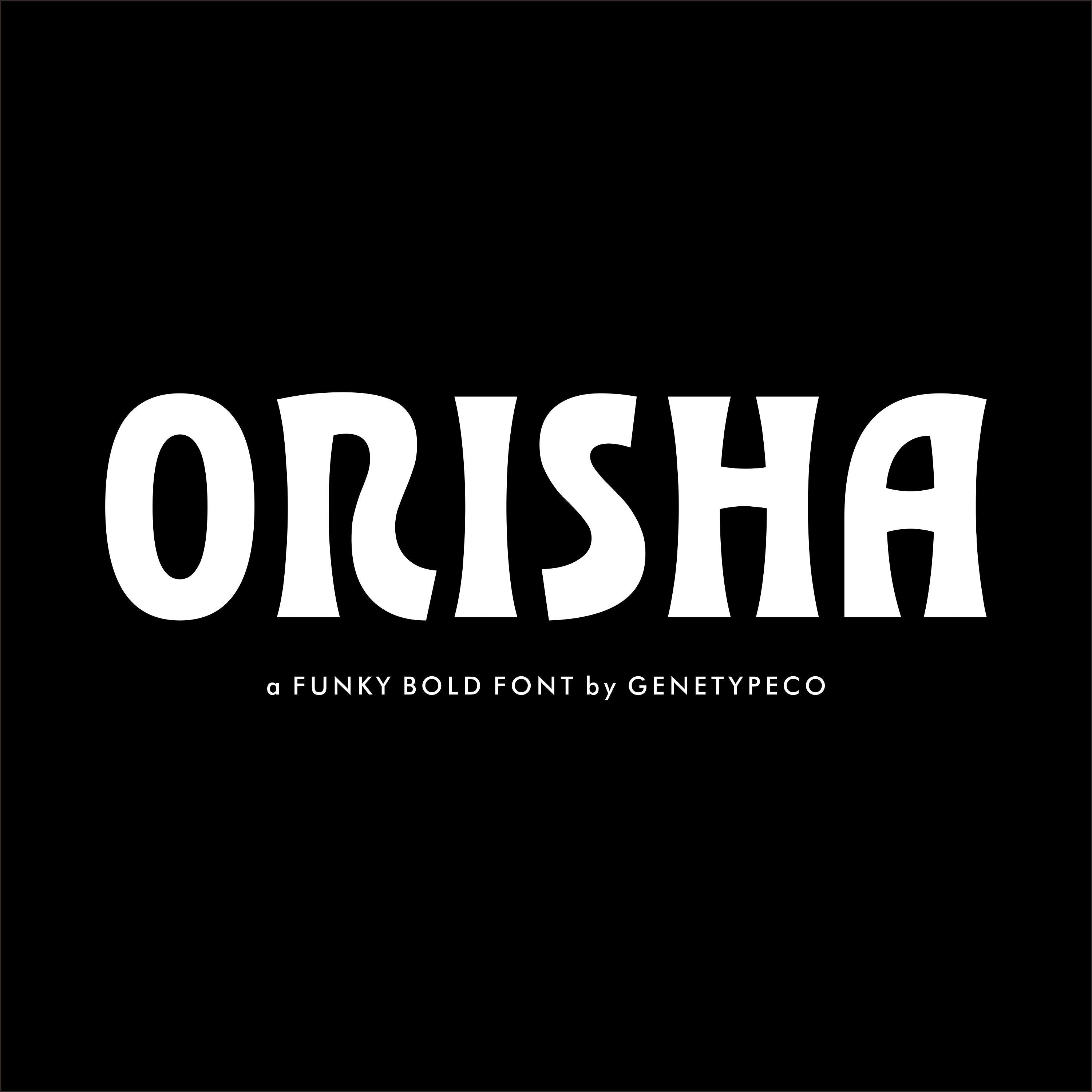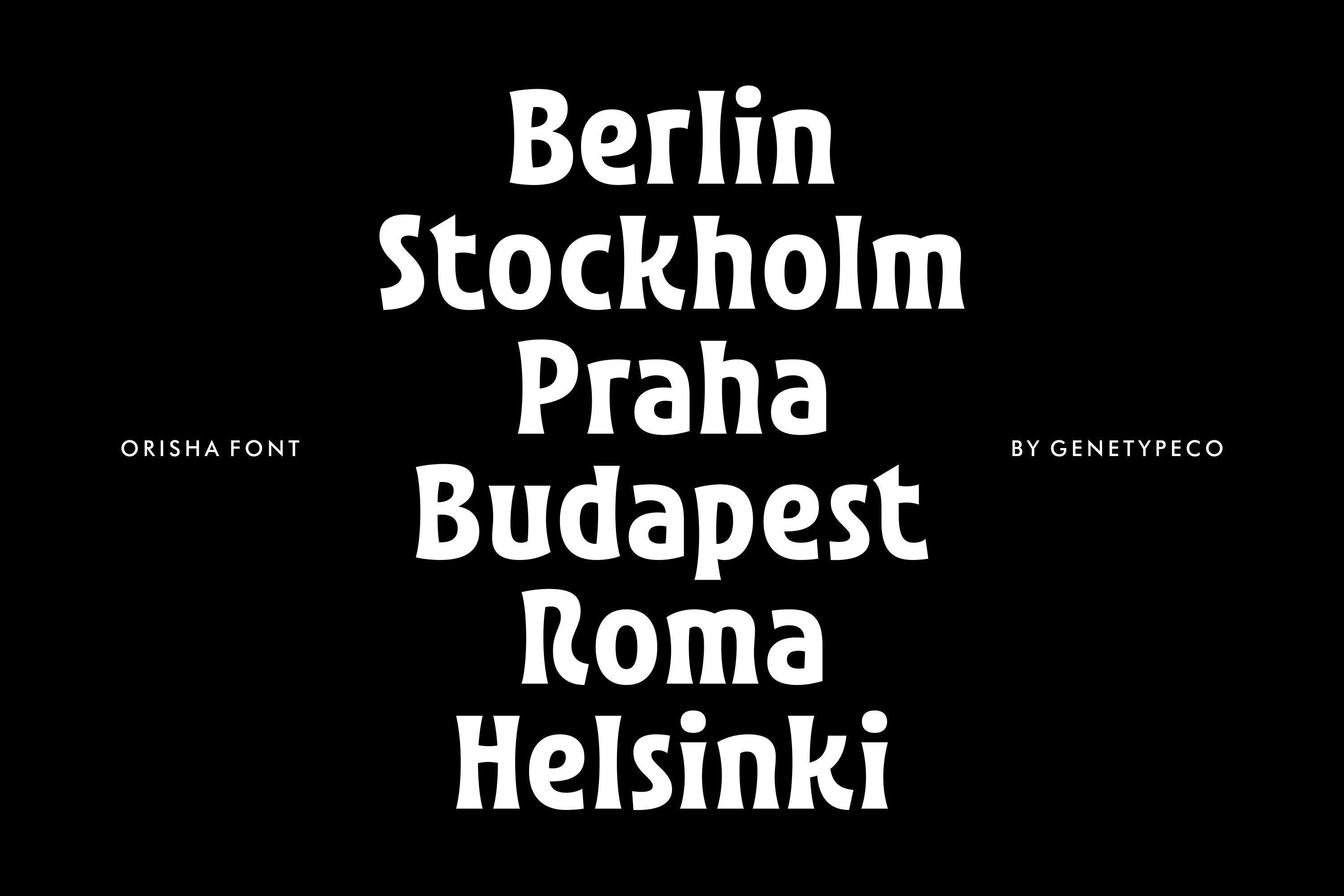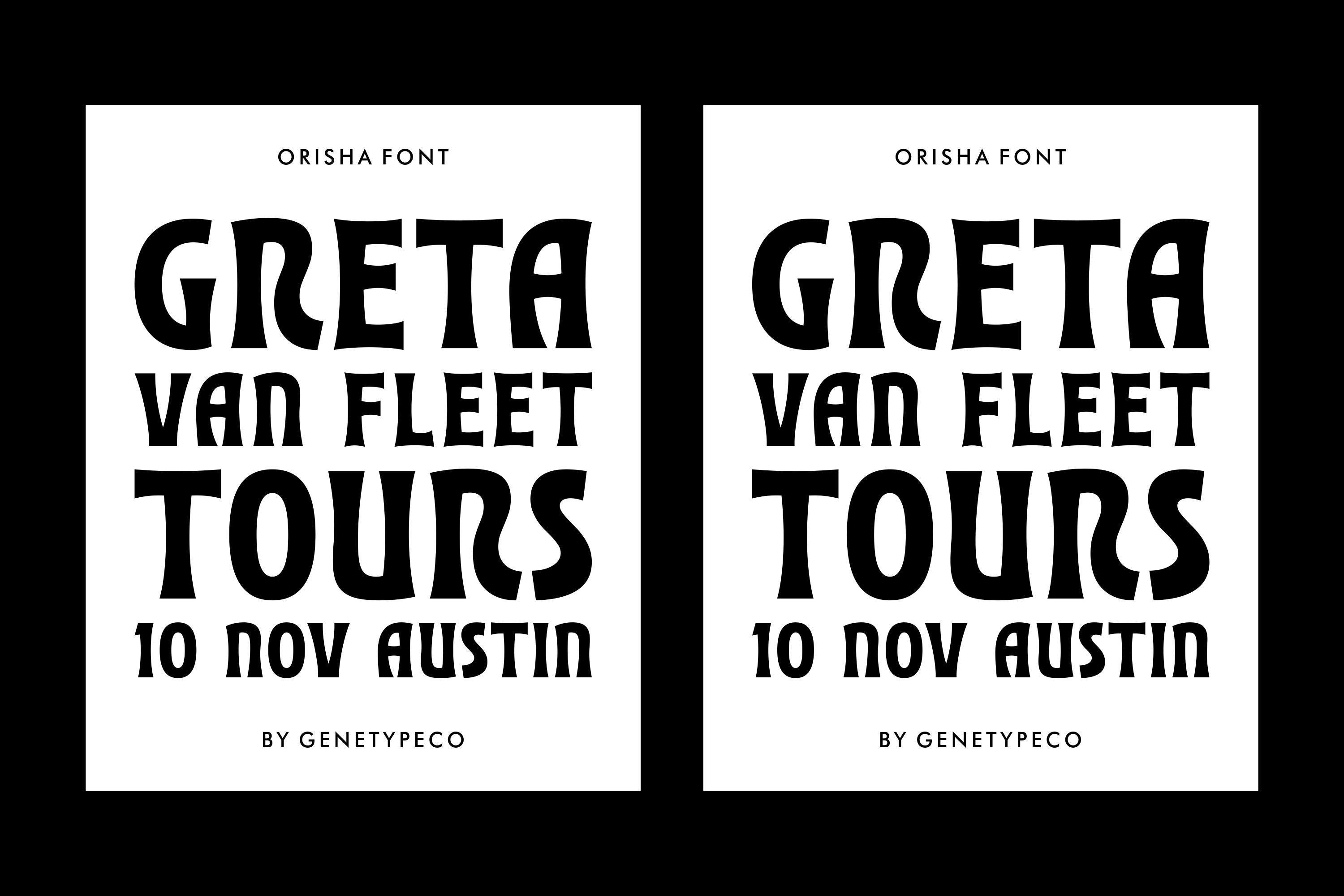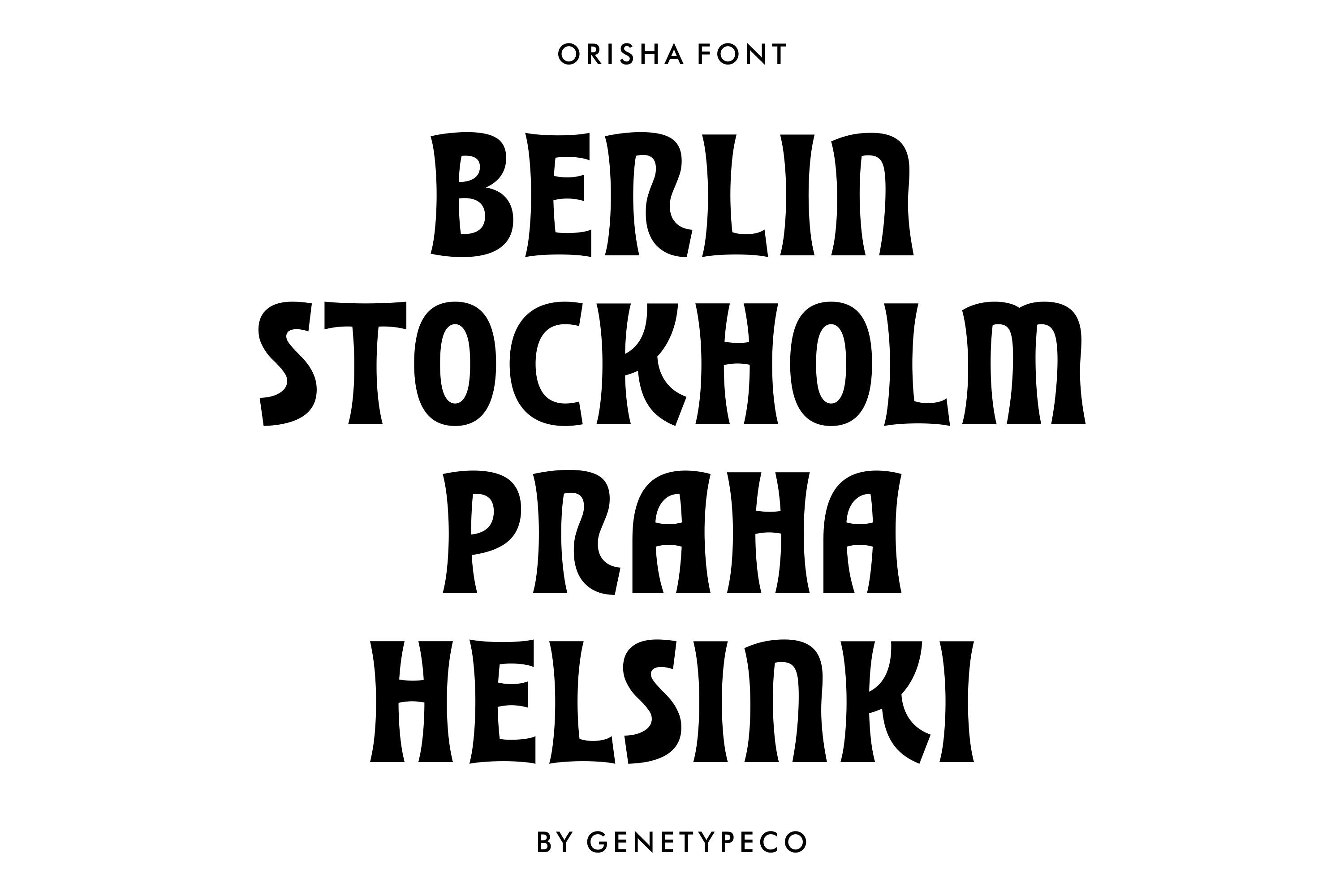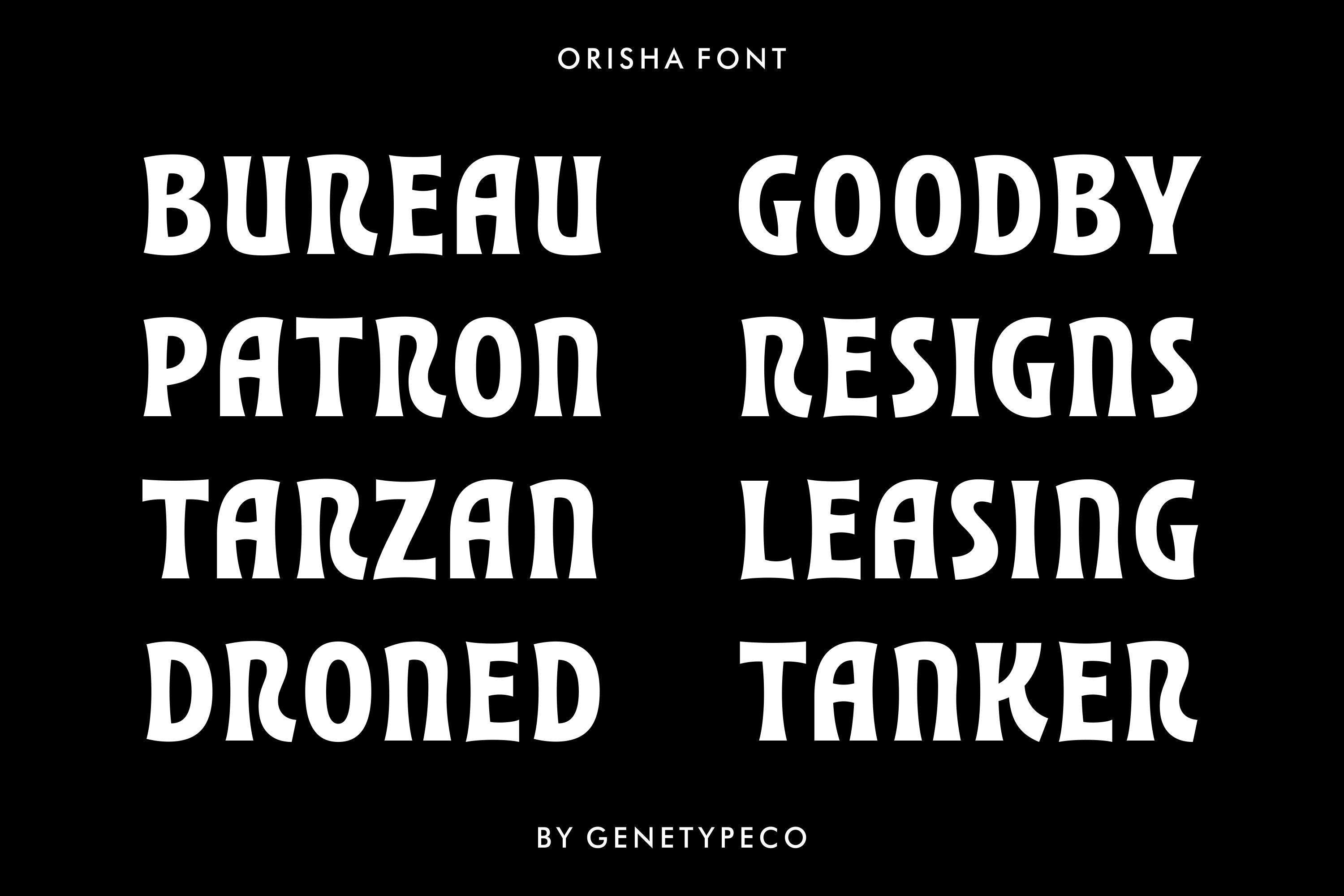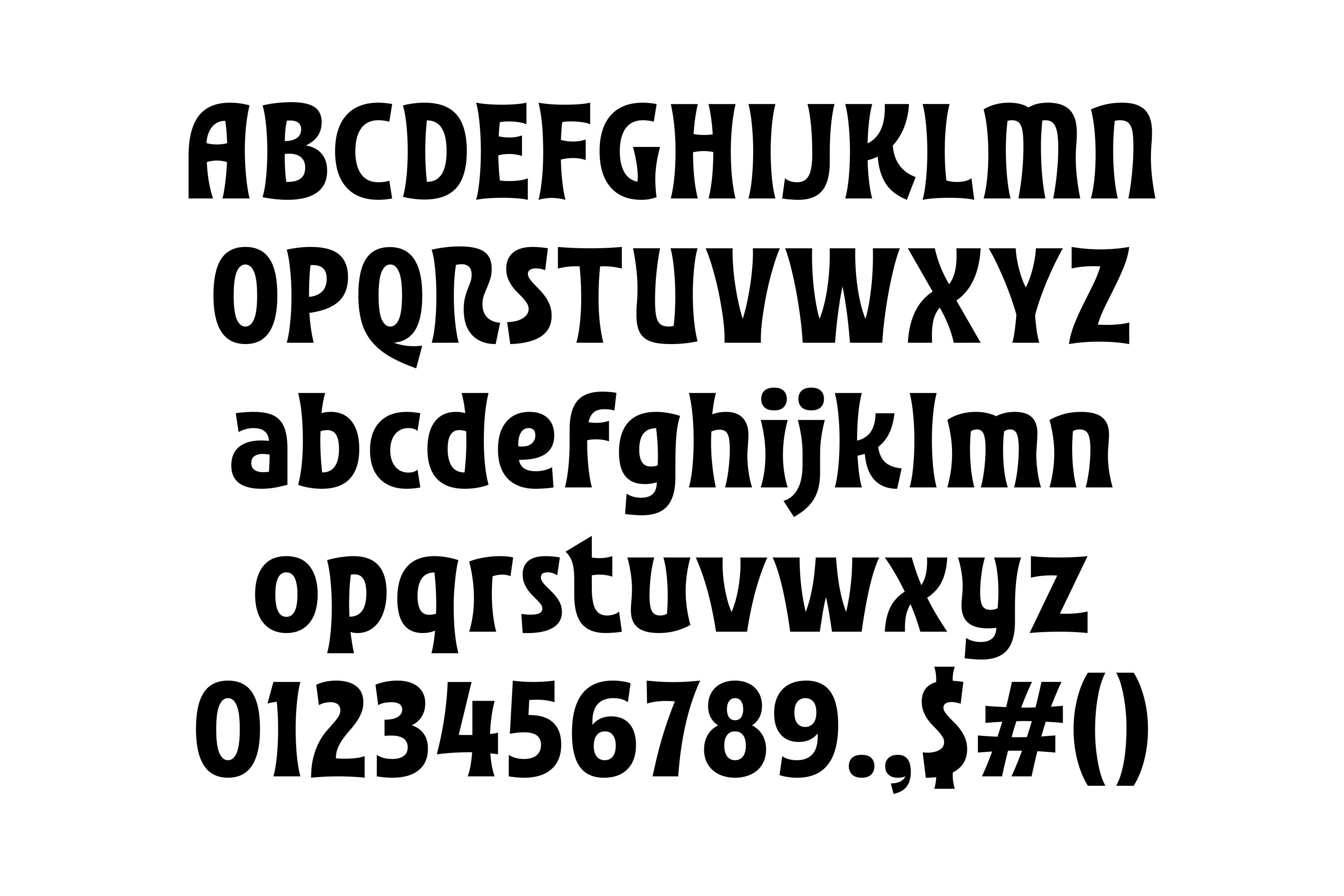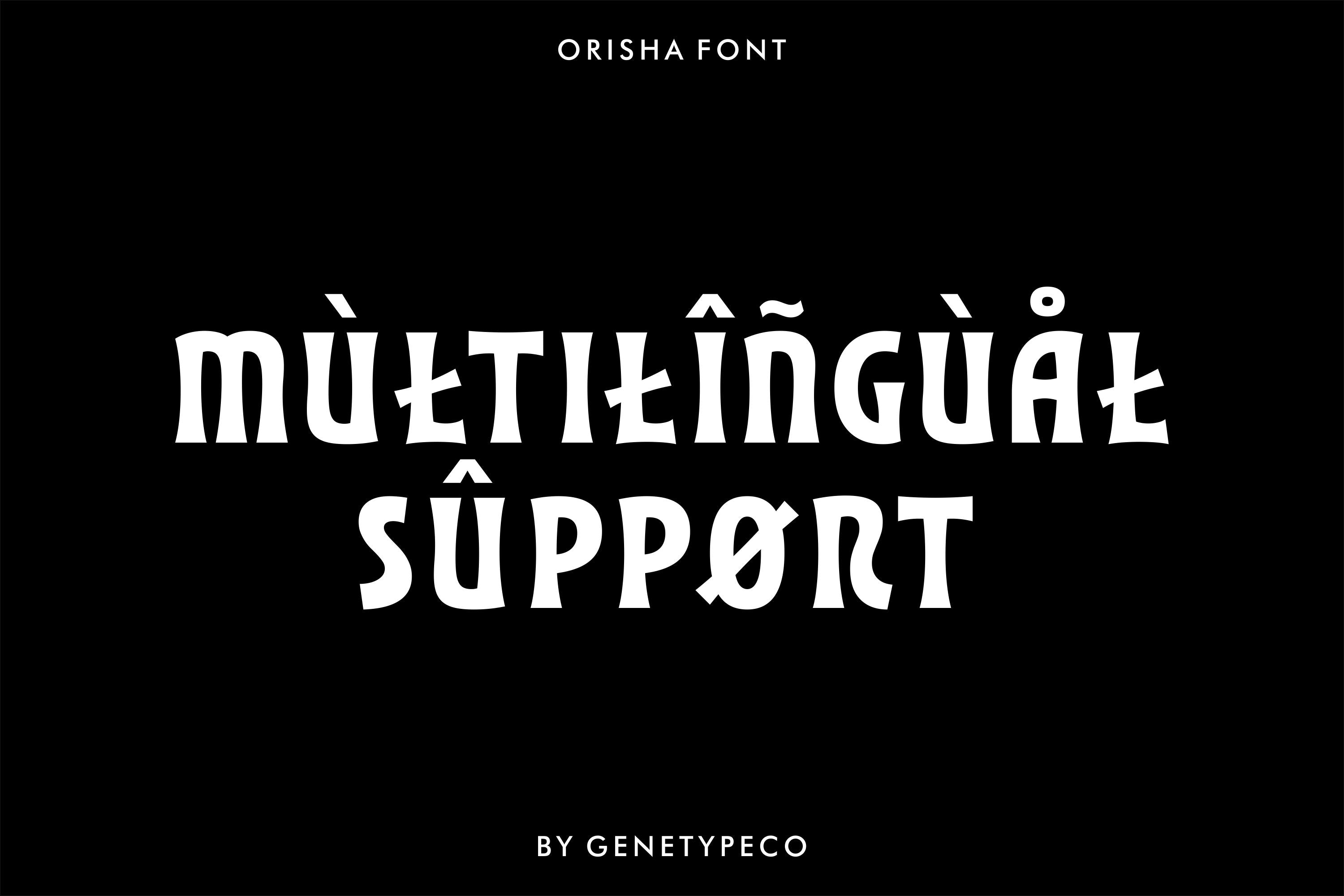
Orisha Typeface
Orisha Typeface is a bold display font characterized by its wavy curves and playful proportions, inspired by retro pop culture and modern design. It features strong shapes and unique curves, making it suitable for a variety of design applications that require a funky and dynamic style.
Genetypeco